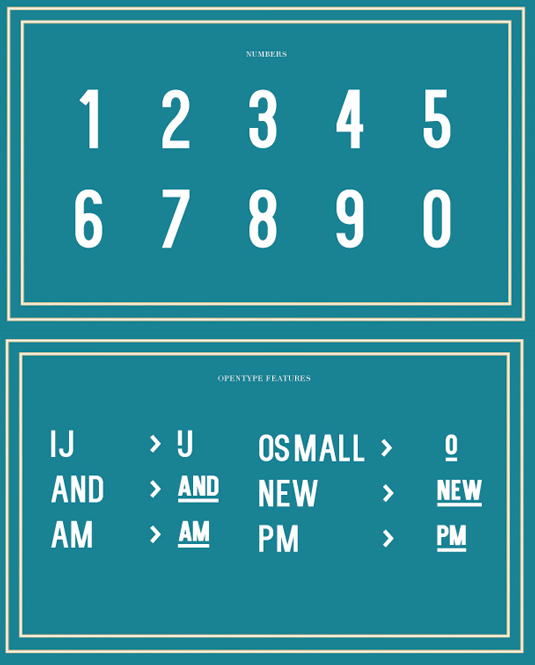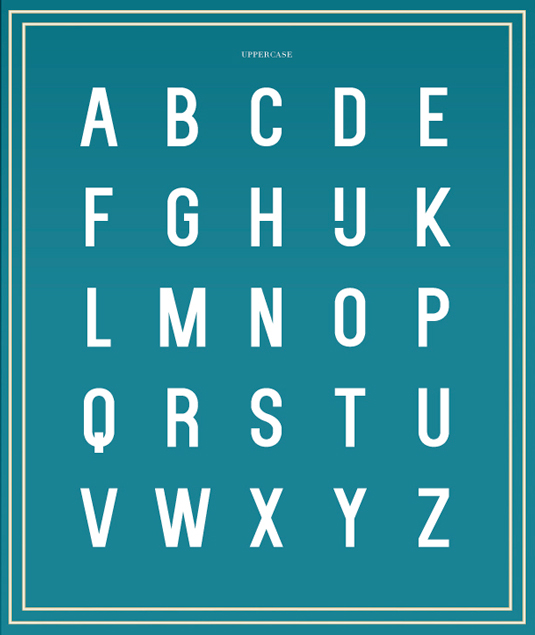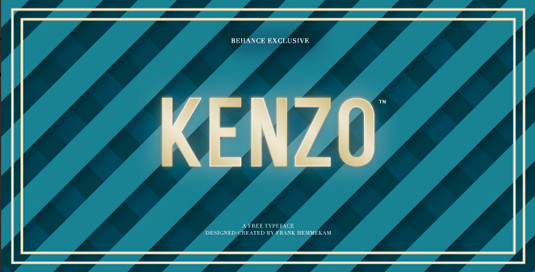
Font of the day: Kenzo
Every day we showcase the best fonts on the web. Today it's Kenzo by Frank Hemmekam - which is free for both personal and commercial use!
Kenzo by Frank Hemmekam
Type designer Frank Hemmekam has a knack for creating cool new fonts, featuring in our font of the day on multiple occasions now. His latest offering is this free uppercase display typeface Kenzo. Hemmekam comments that his new design is 'perfect for use in posters, logotypes and headlines'.